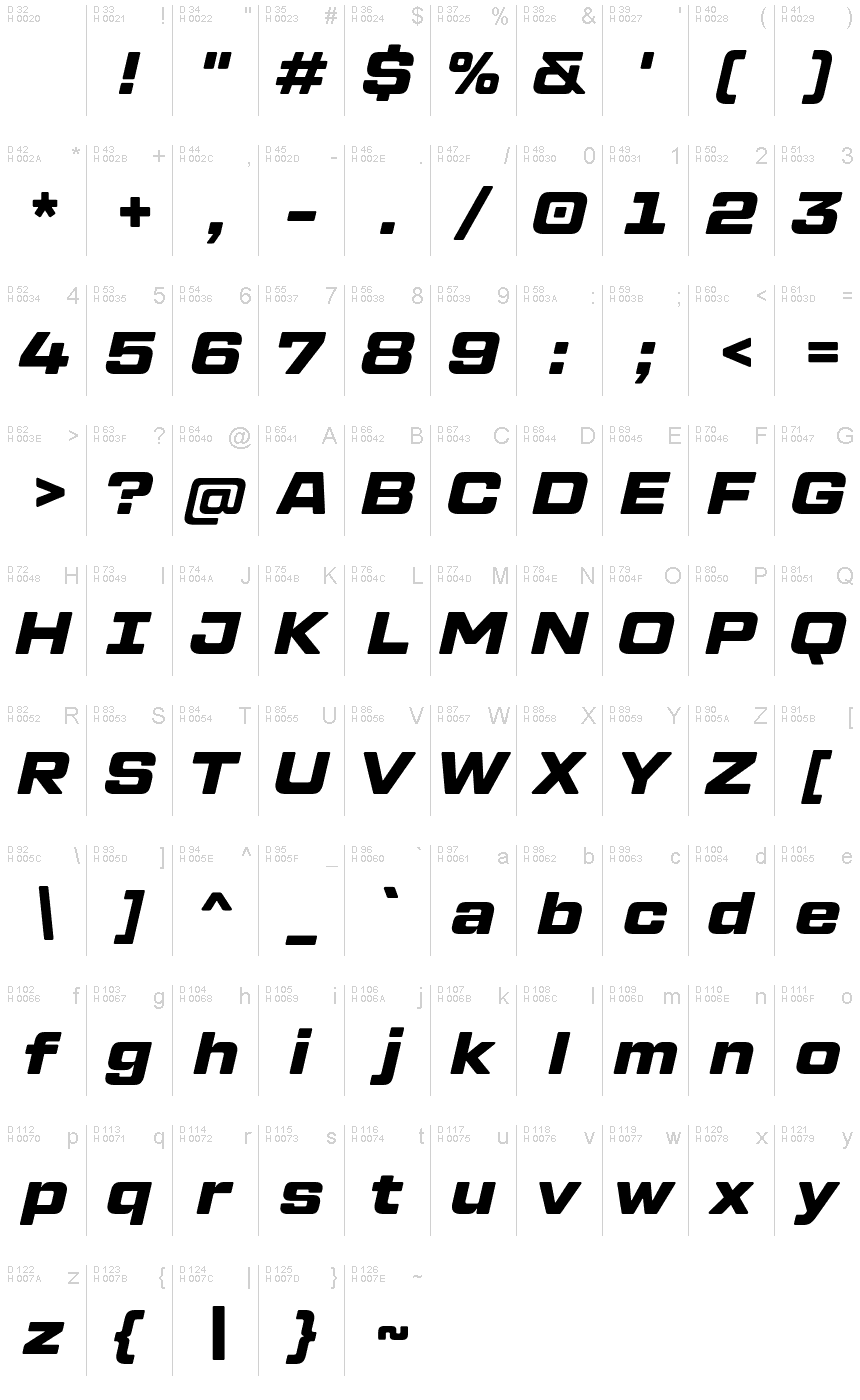
TT Lakes Neue Trl Ext Blc It
TT Lakes Neue Ext Blc It is a stunning ultra-bold sans serif font from the renowned TypeType Foundry. Its extra-expanded width and clean lines make it perfect for branding, headlines, and editorial design. This versatile font is also well-suited for packaging, logos, and advertising campaigns that require a bold and impactful statement. With its modern look and sophisticated feel, TT Lakes Neue Ext Blc It exudes confidence and elegance. Whether you're designing for luxury brands or lifestyle magazines, this font will elevate your projects to the next level with ease.